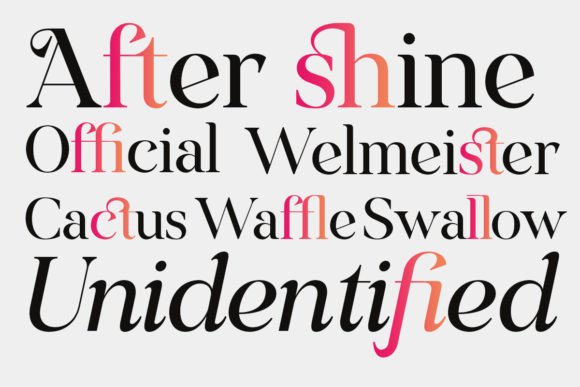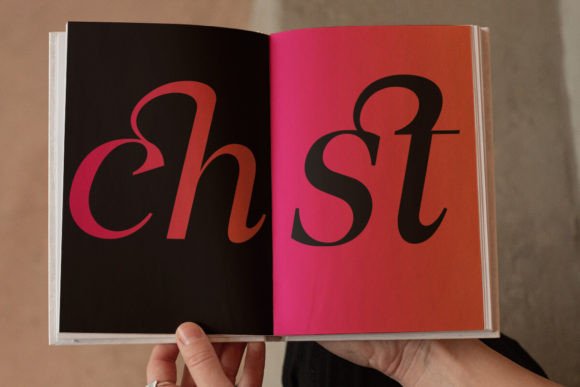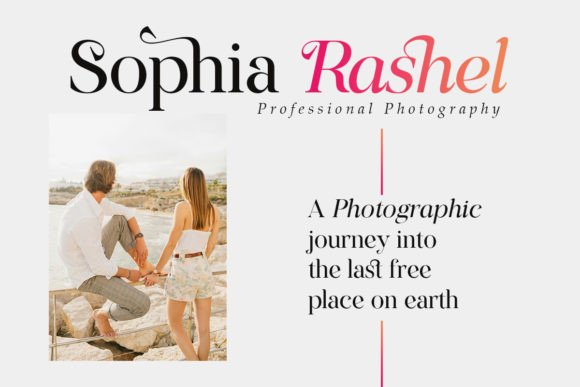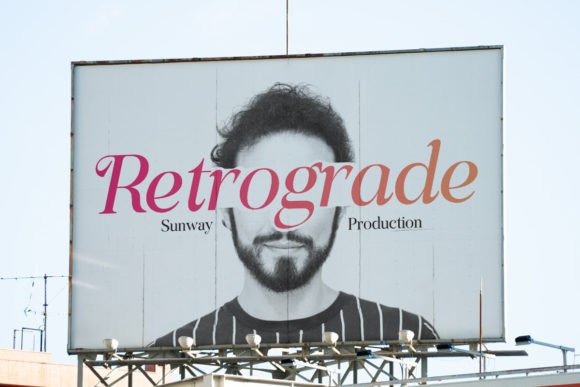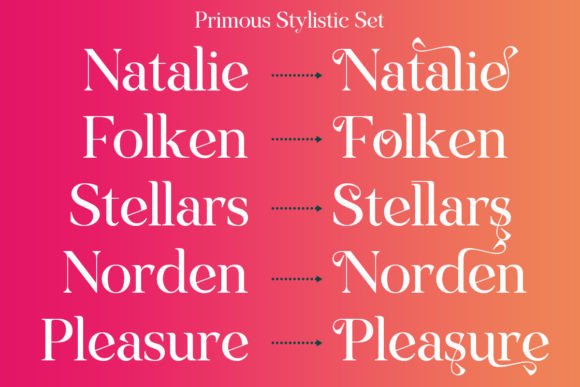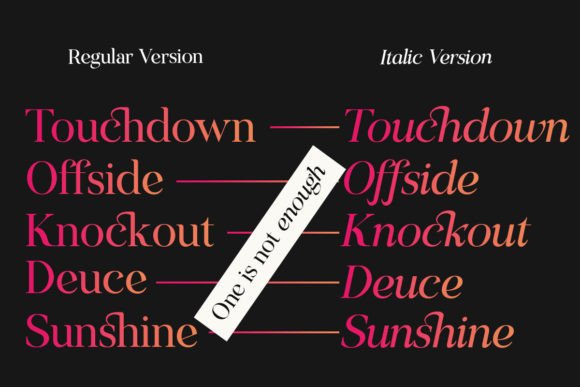
Introduction to Primous Font Font
Fonts play a crucial role in design, and the Primous Font font is a typeface that brings both character and versatility to any project. Whether you’re working on a branding project, a website, or a print design, the Primous Font font offers a unique style that can elevate your work.
Primous is a modern vintage serif font packaged in a modern and classy style, complete with your OpenType feature access to access a large selection of alternative fonts and bindings, the choice of fonts you like from large and small font variations for a luxurious and elegant look.
Primous is a modern vintage serif font packaged in a modern and classy style, complete with your OpenType feature access to access a large selection of alternative fonts and bindings, the choice of fo
Key Features of Primous Font Font
• ✅ High-quality typeface designed for professional use
• ✅ Includes a wide range of glyphs and characters
• ✅ Ideal for logos, branding, websites, and print
Why Choose Primous Font Font?
The Primous Font font is more than just a typeface – it’s a design tool that helps you communicate your message with style and clarity. Its unique character set and versatile design make it suitable for a wide range of applications, from elegant invitations to bold headlines.
With its carefully crafted letterforms and balanced proportions, the Primous Font font ensures readability and visual appeal across all mediums.
What makes Primous Font font special?
The Primous Font font stands out with its unique design, exceptional readability, and versatility across various design applications.